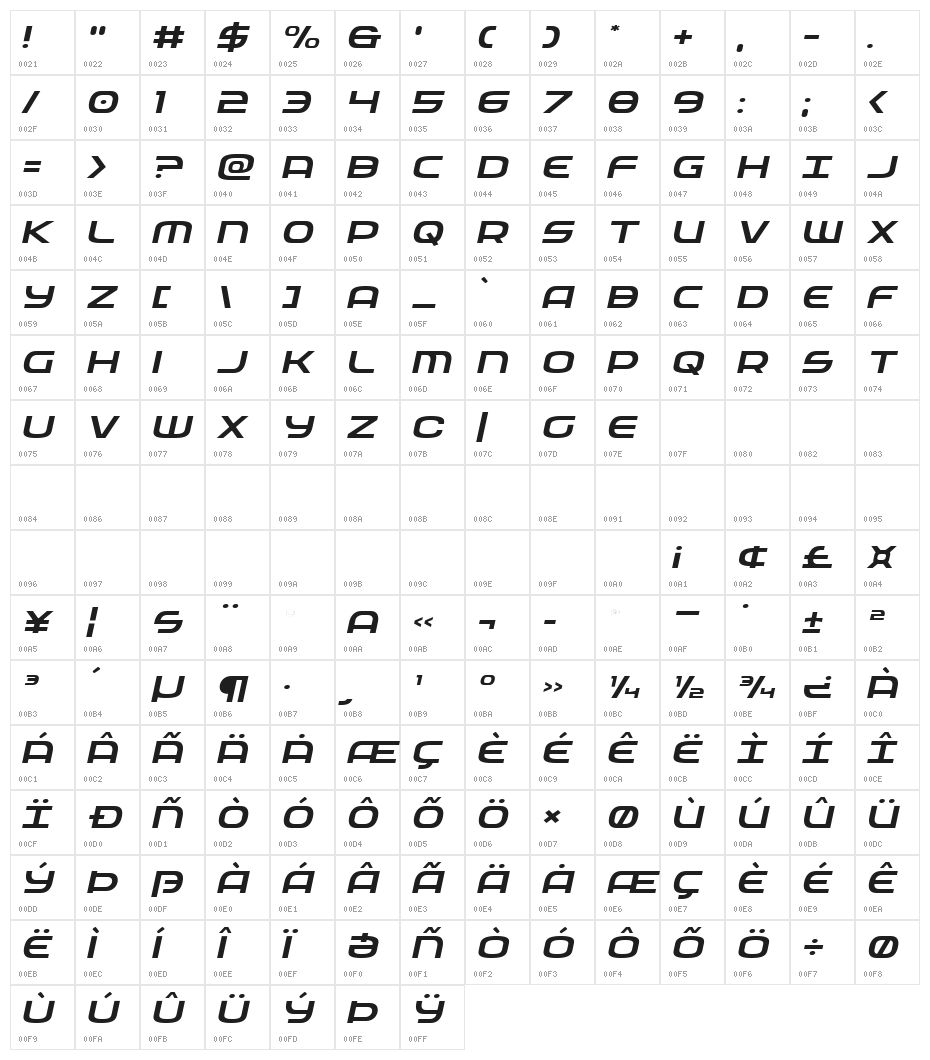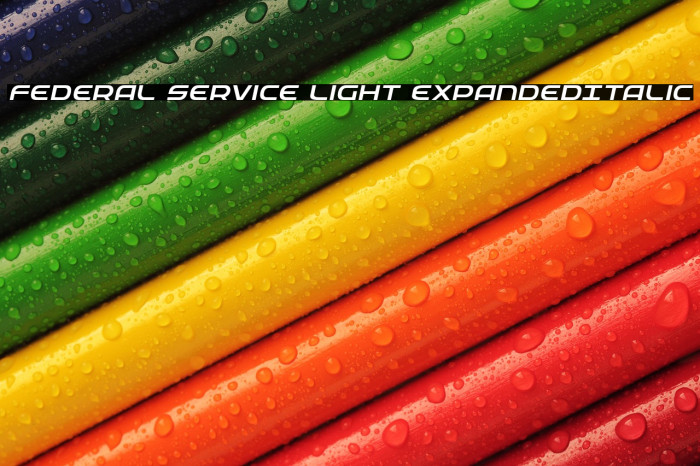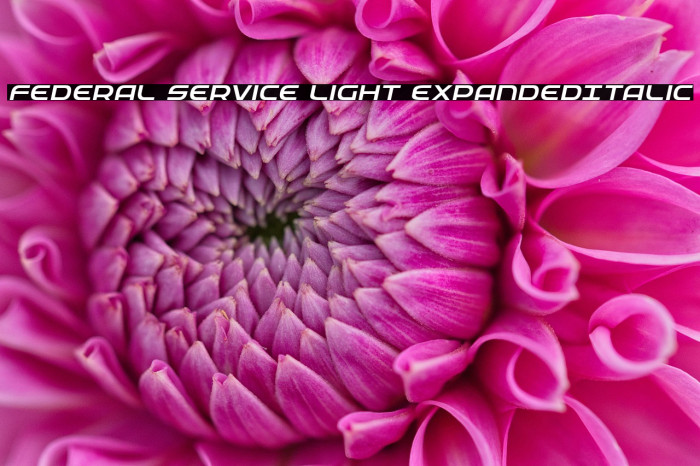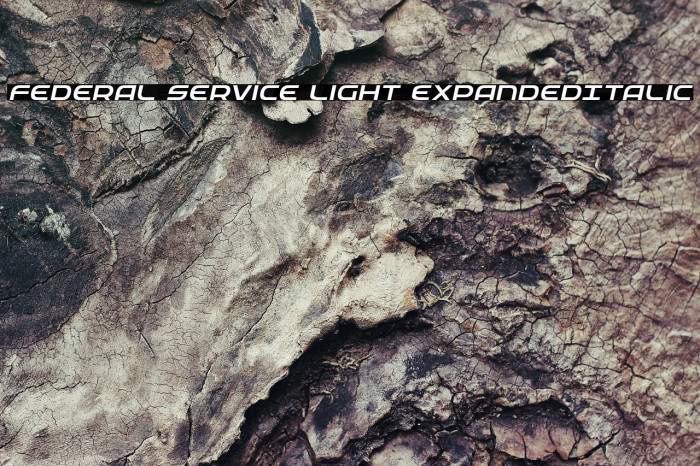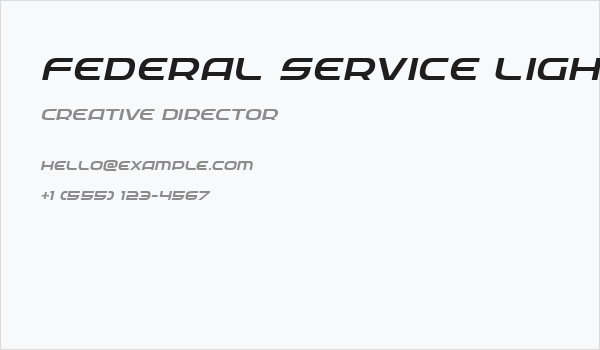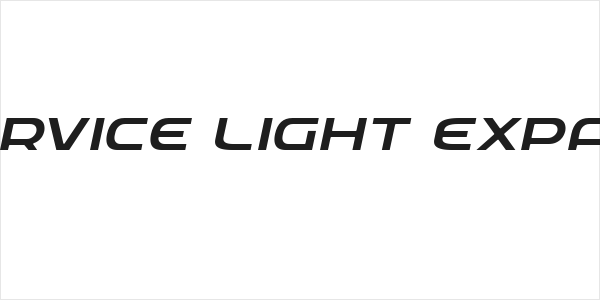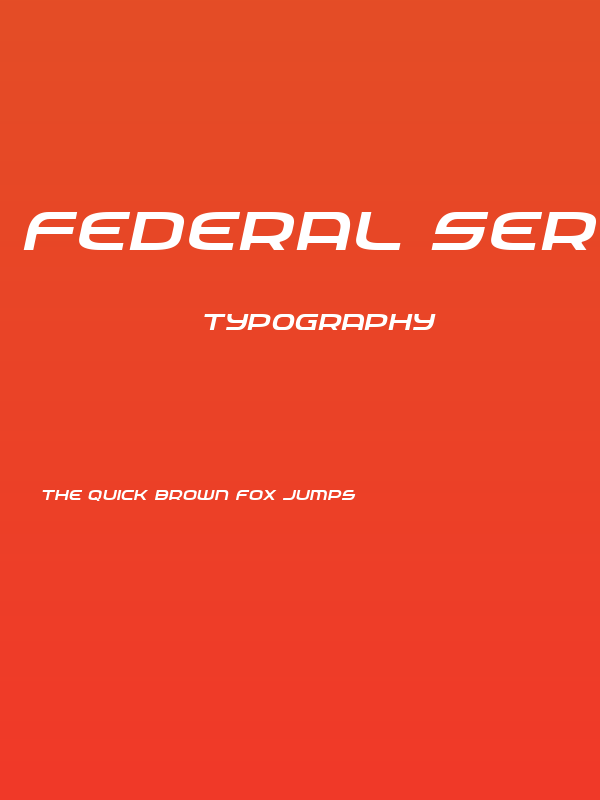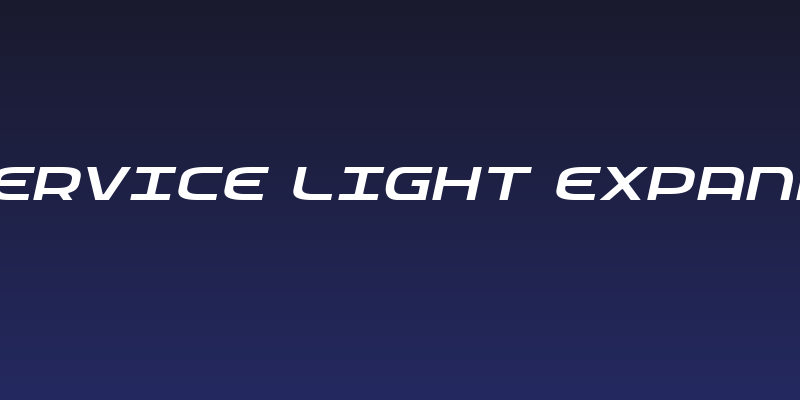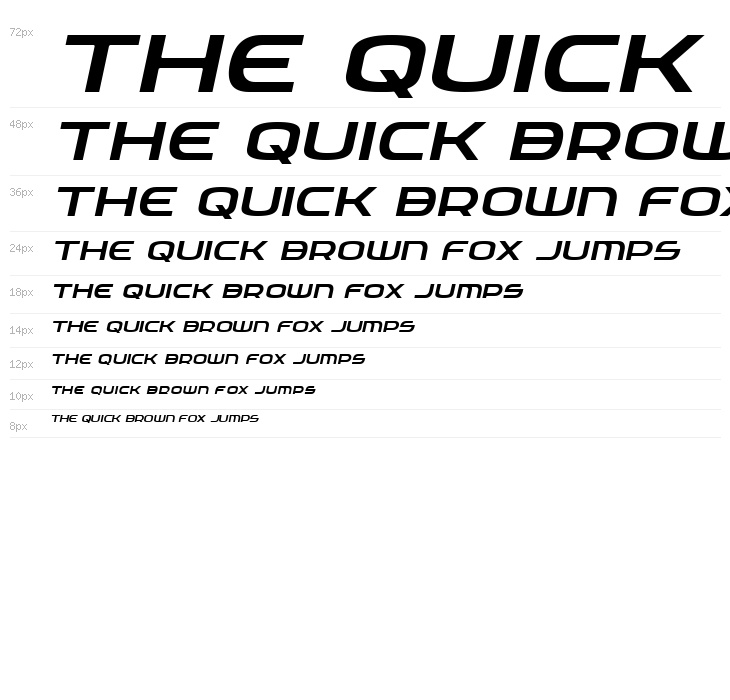
Federal Service Light ExpandedItalic Font
Federal Service Light ExpandedItalic Description
This font features a sleek, modern design with a light weight and expanded width. The italic style adds a dynamic and forward-moving appearance, making it suitable for contemporary and futuristic themes. The characters are well-spaced, providing a clean and readable look. The uppercase and lowercase letters maintain a consistent style, with smooth curves and sharp edges that enhance its modern aesthetic. The numerals and special characters are designed to match the overall style, ensuring uniformity across all text elements.